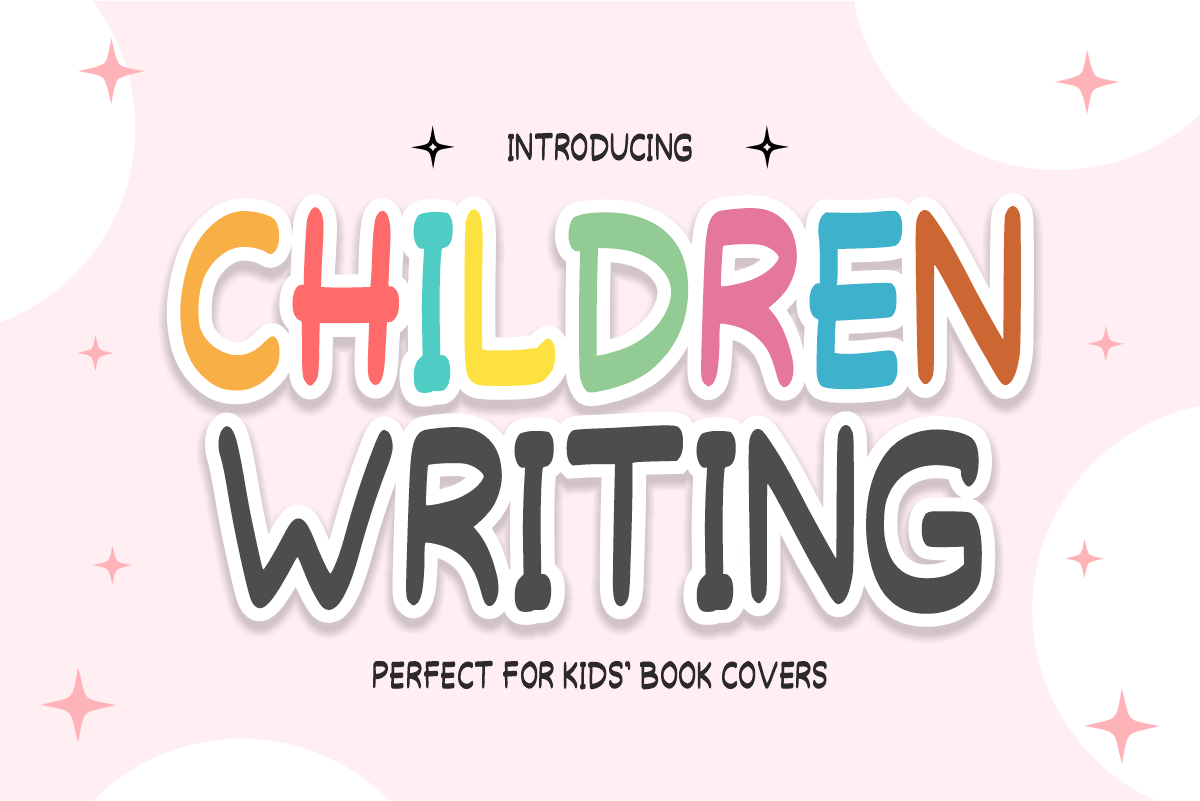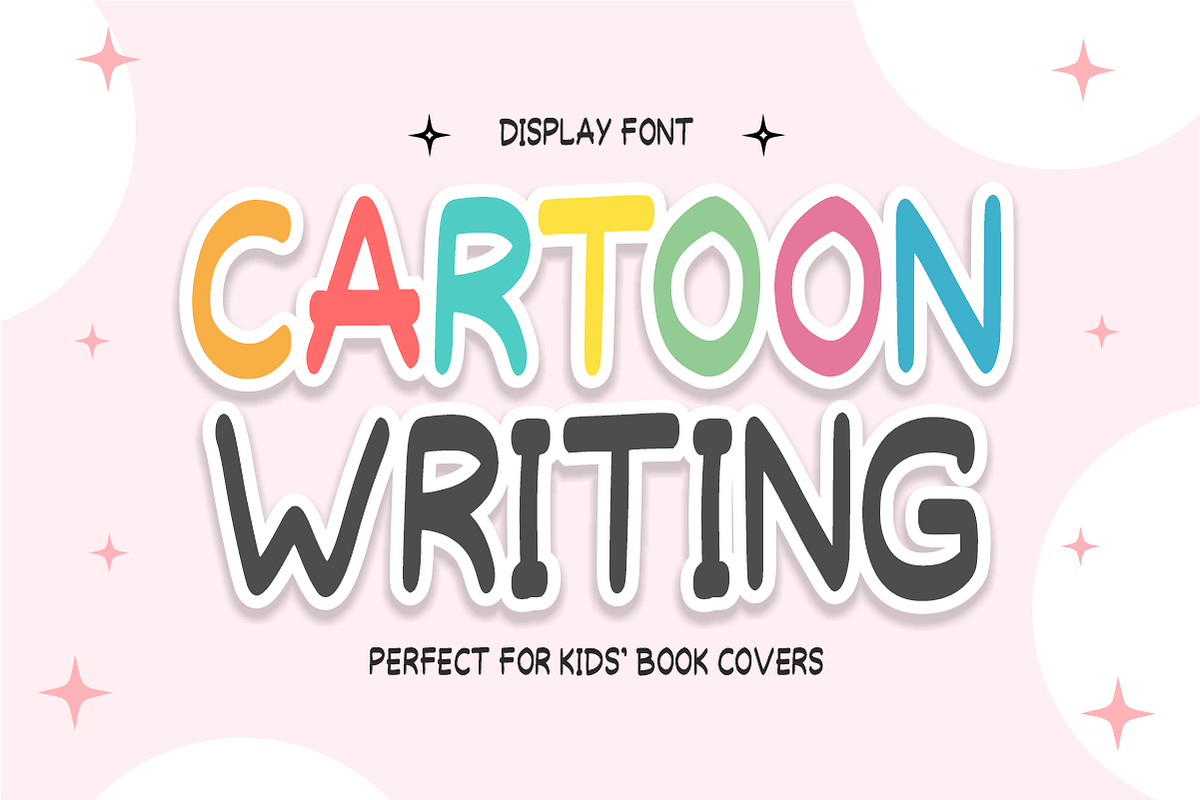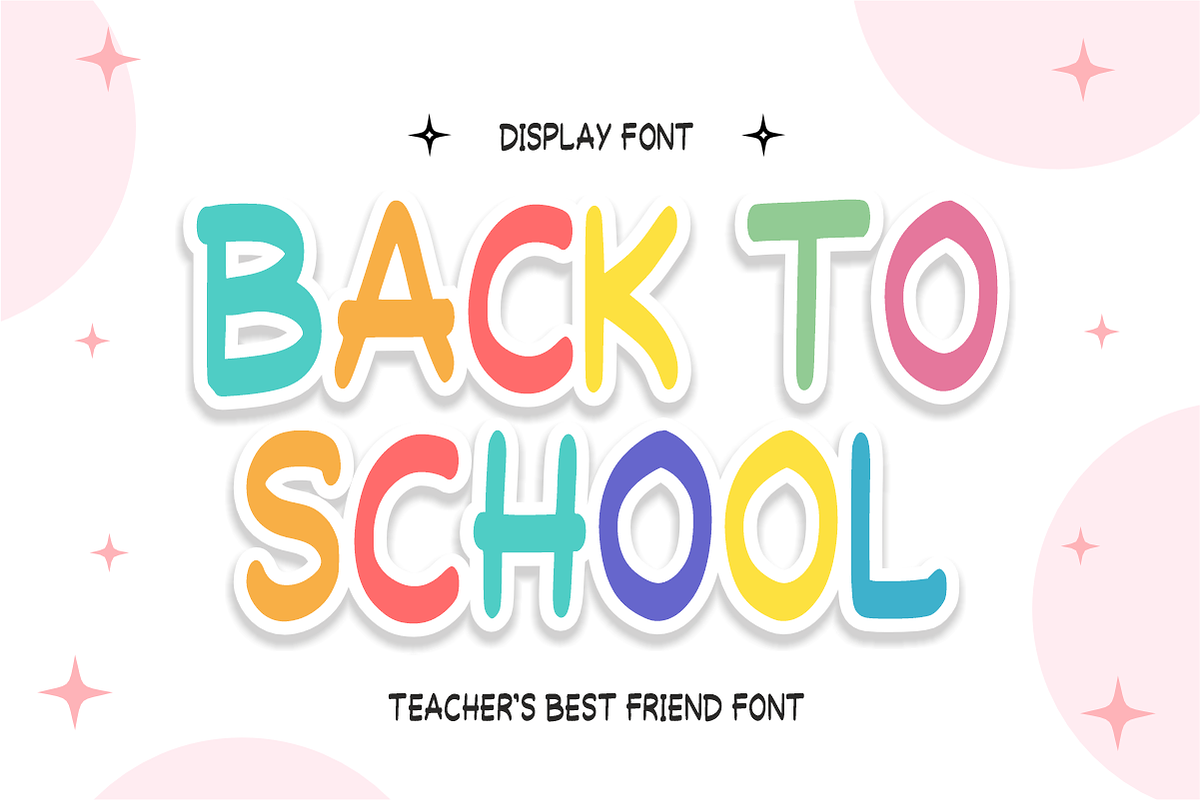
Children Writing - Cute Kids Font
Children Writing - Cute Kids Handwriting Font
Children Writing is an adorable, handwritten display font featuring tall, playful letterforms inspired by authentic child handwriting. Specially designed for children's storybook covers, classroom activity sheets, sweet nursery decor, and cute craft projects, this charming font brings an organic, joyful, and friendly touch to every layout. Every character is cleanly vectorized to guarantee high-resolution prints and smooth, effortless cutting on Cricut and Silhouette machines.
Uppercase Character Set
Numbers & Basic Punctuation
Ideal For:
Children’s book covers, storybook titles, nursery prints, fairytale illustrations, and juvenile publishing
Teachers Pay Teachers (TpT) authors creating back-to-school worksheets, student learning flashcards, reading headers, and classroom bulletin boards
Cricut, Silhouette, and HTV vinyl cutting projects for kids' apparel, tote bags, custom lunchboxes, and playroom decor
Etsy sellers designing birthday party invitations, custom school stationery, printable activity packs, and greeting cards
Print-on-Demand (POD) products, educational board games, toy packaging, and children's lifestyle merchandise
Canva template creators making library posters, school event banners, and engaging social media graphics
Custom die-cut sticker packs, planner decals, and digital scrapbooking layouts